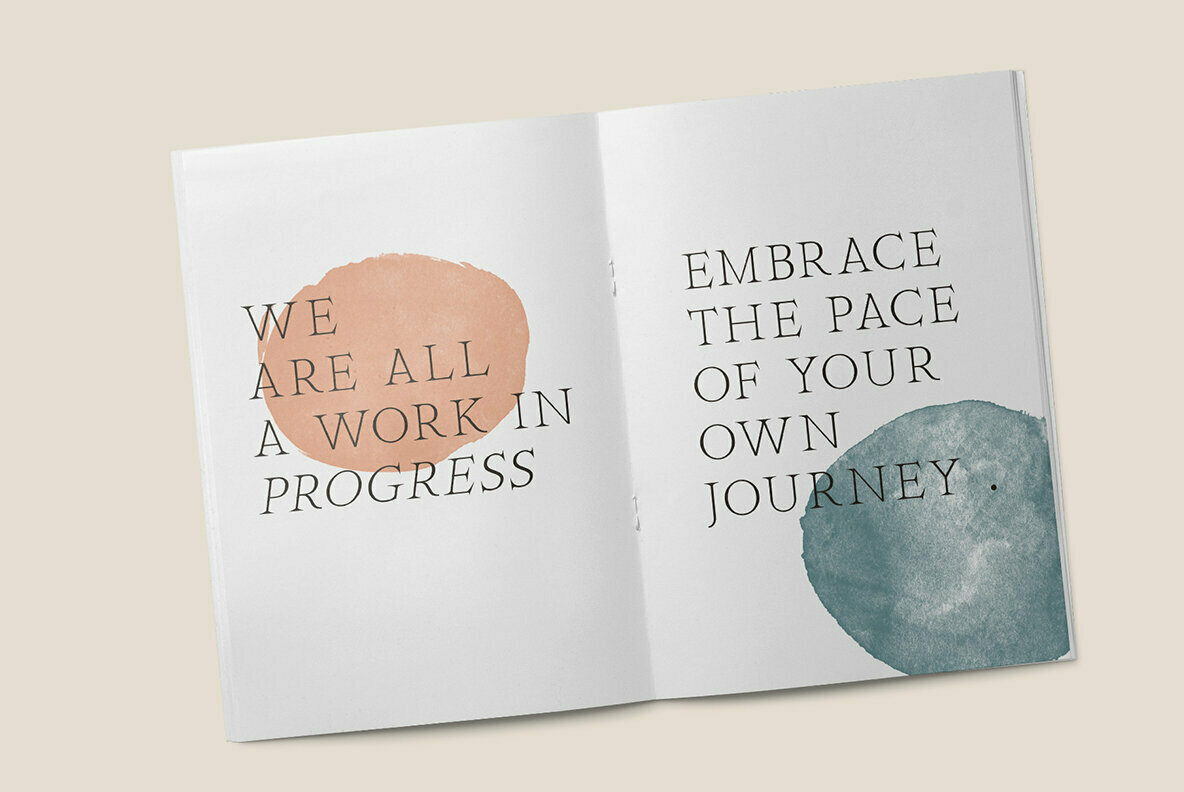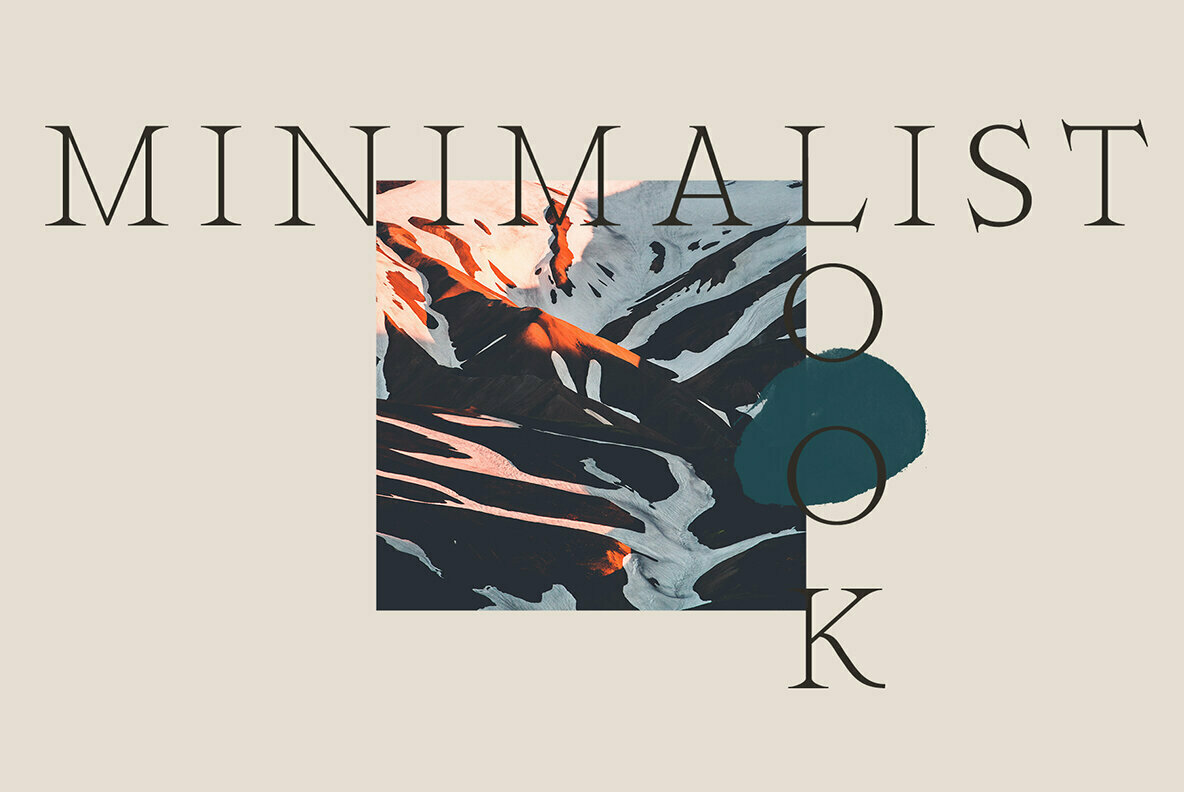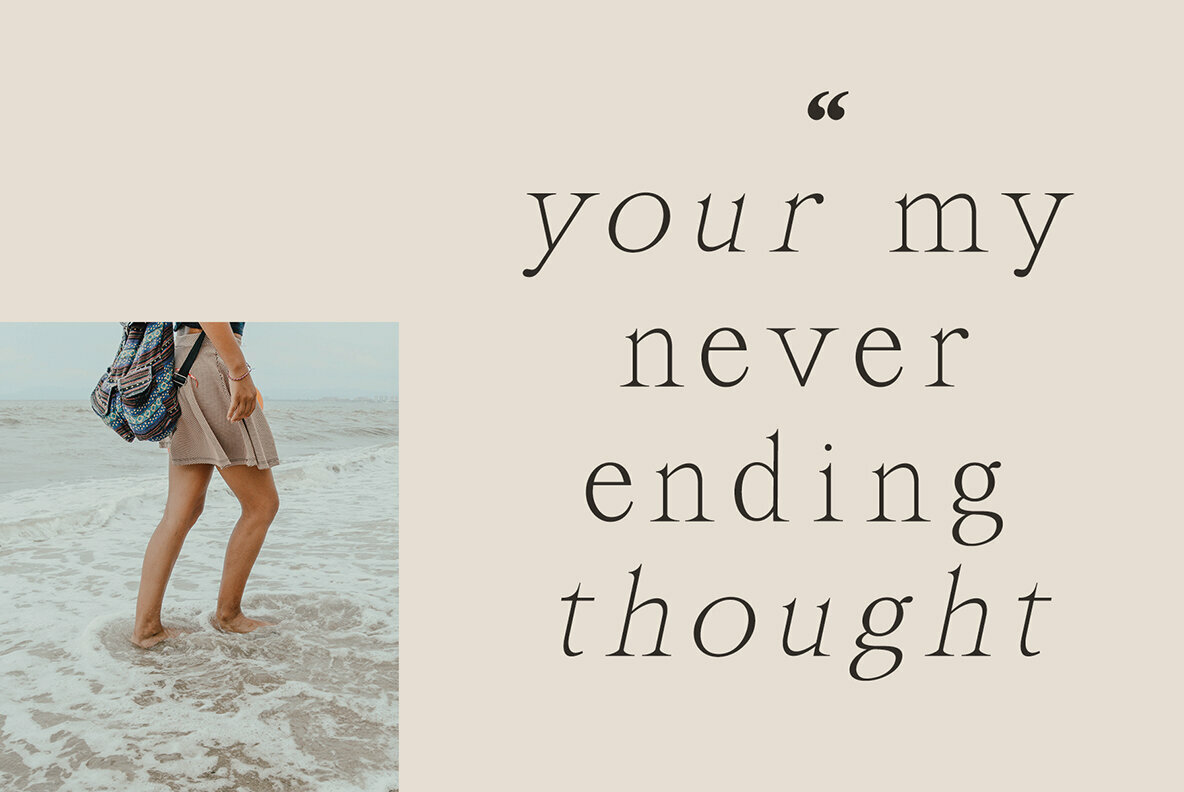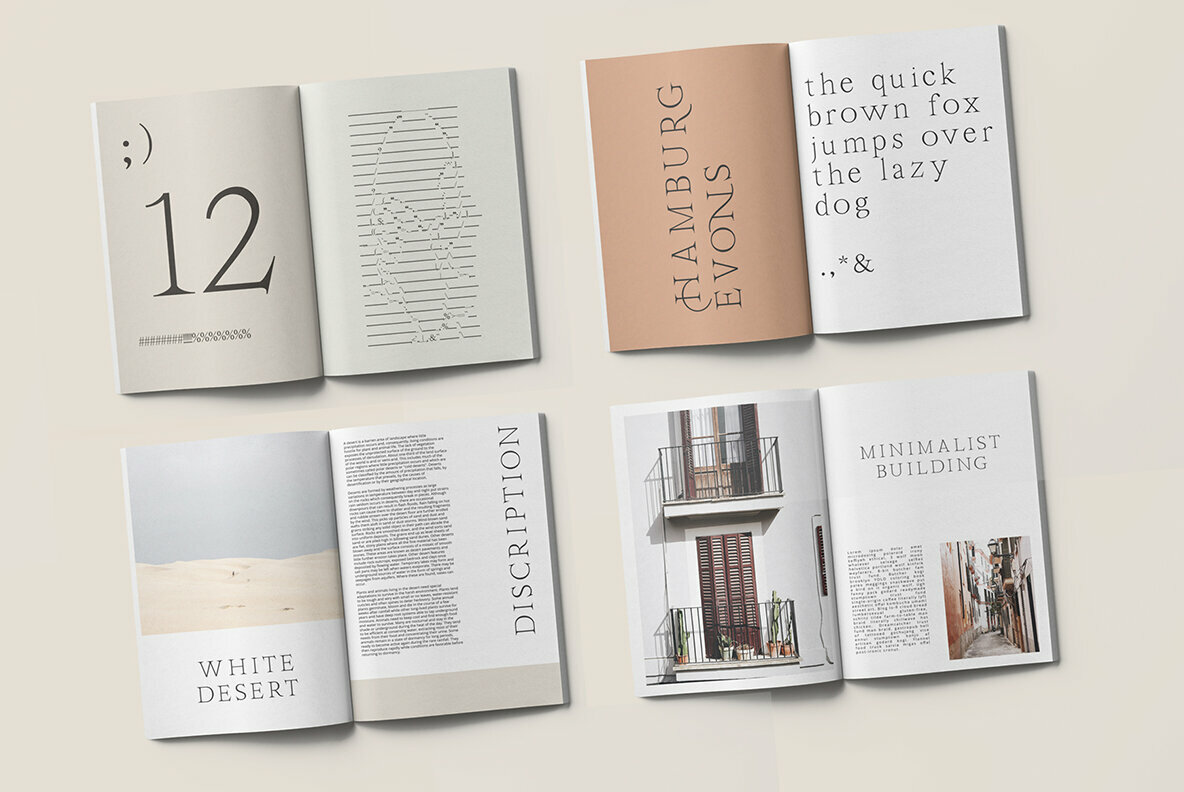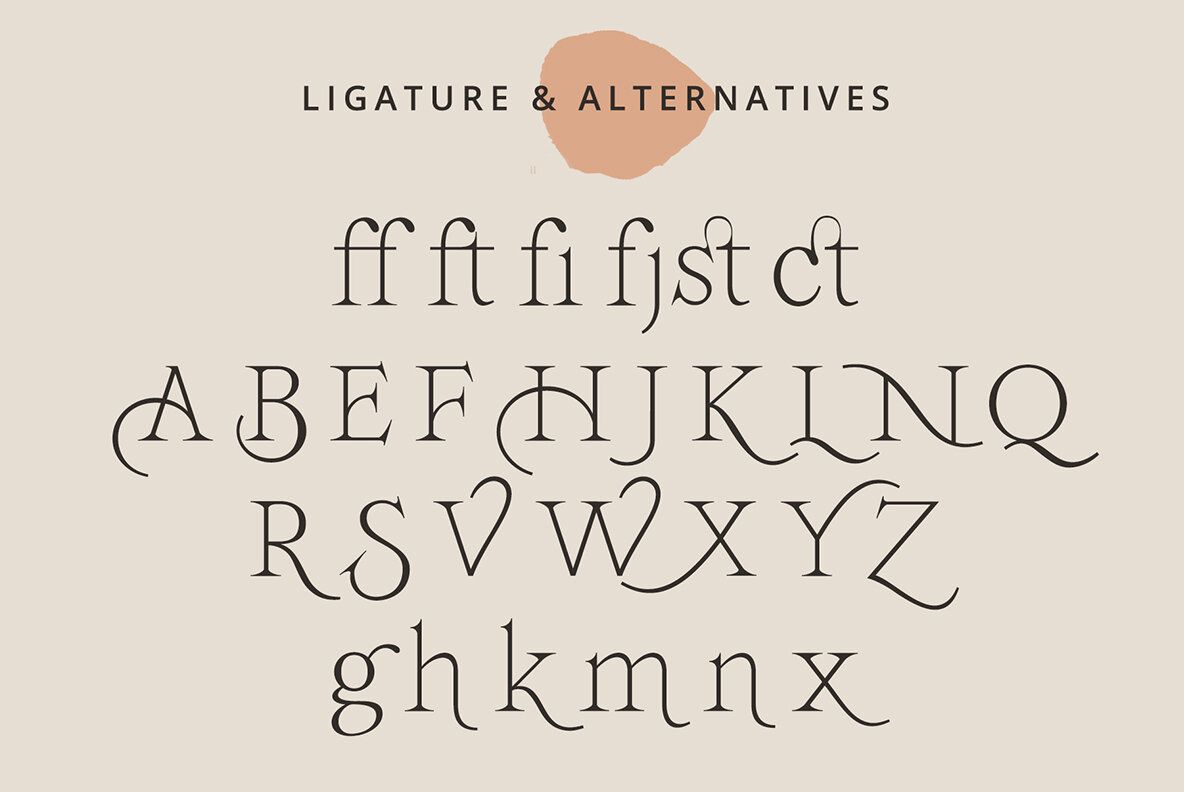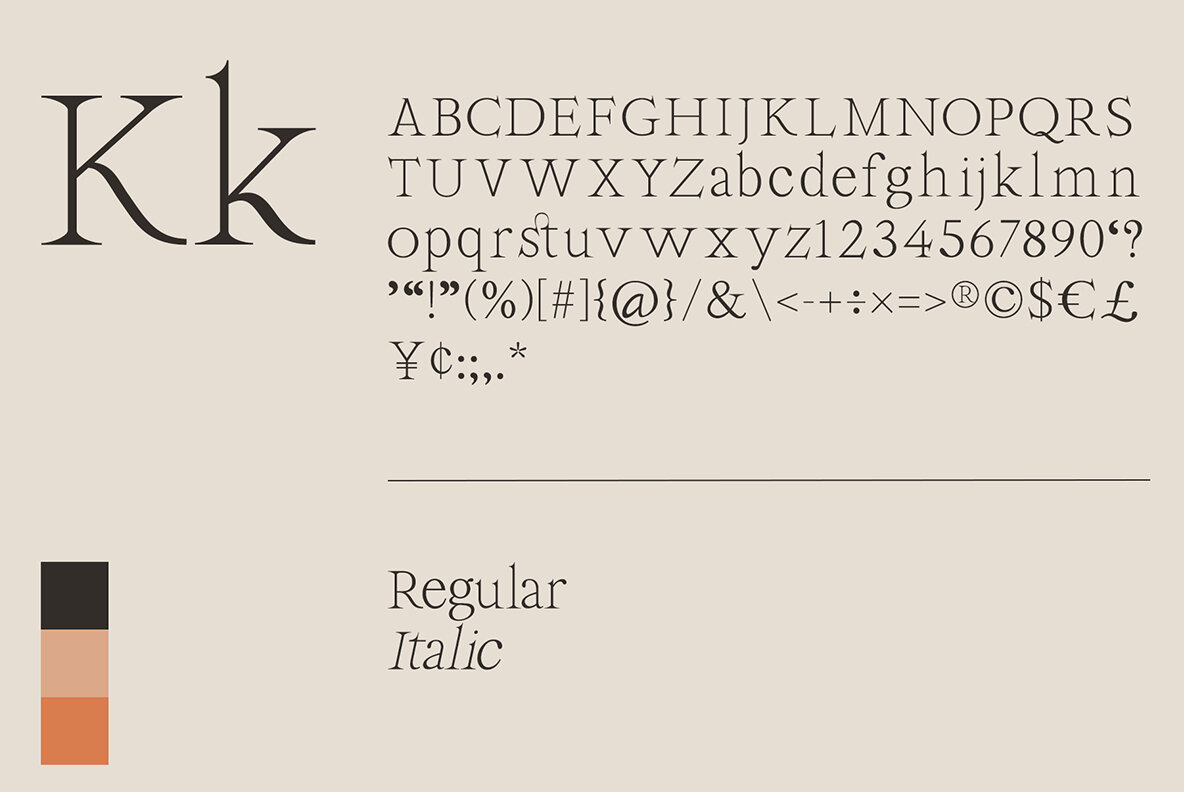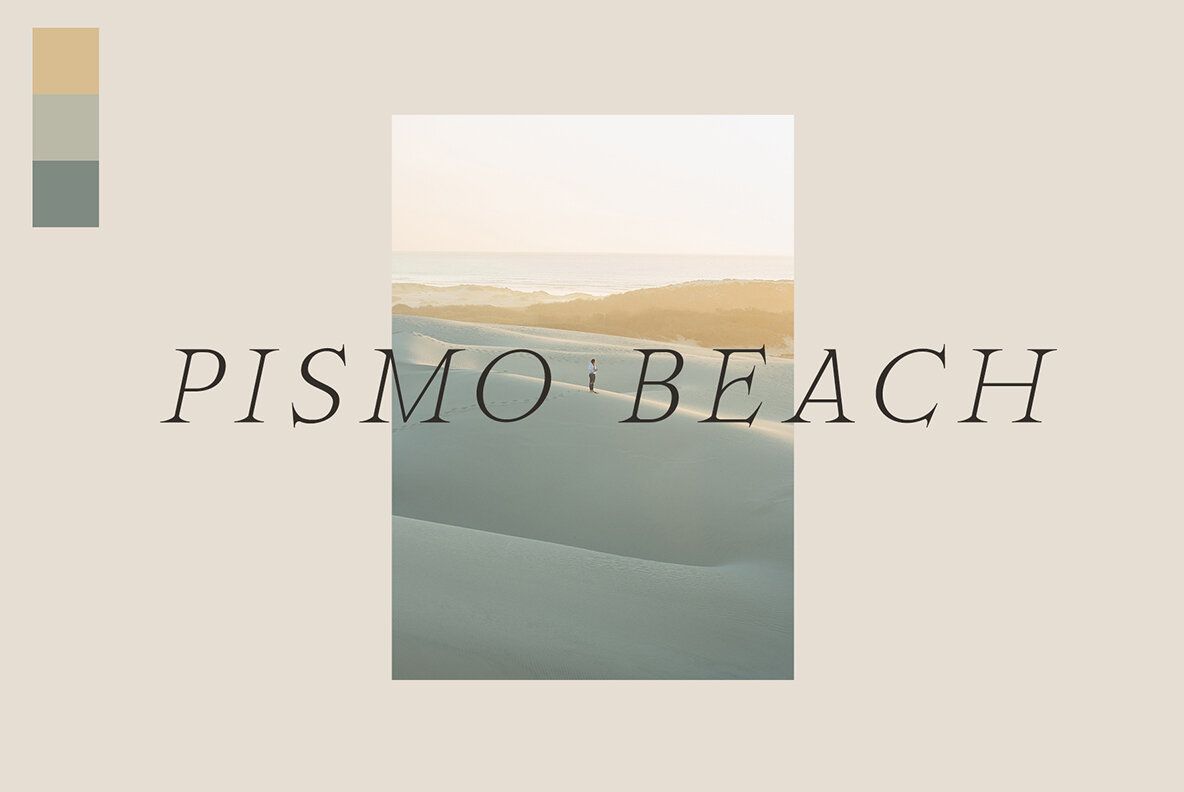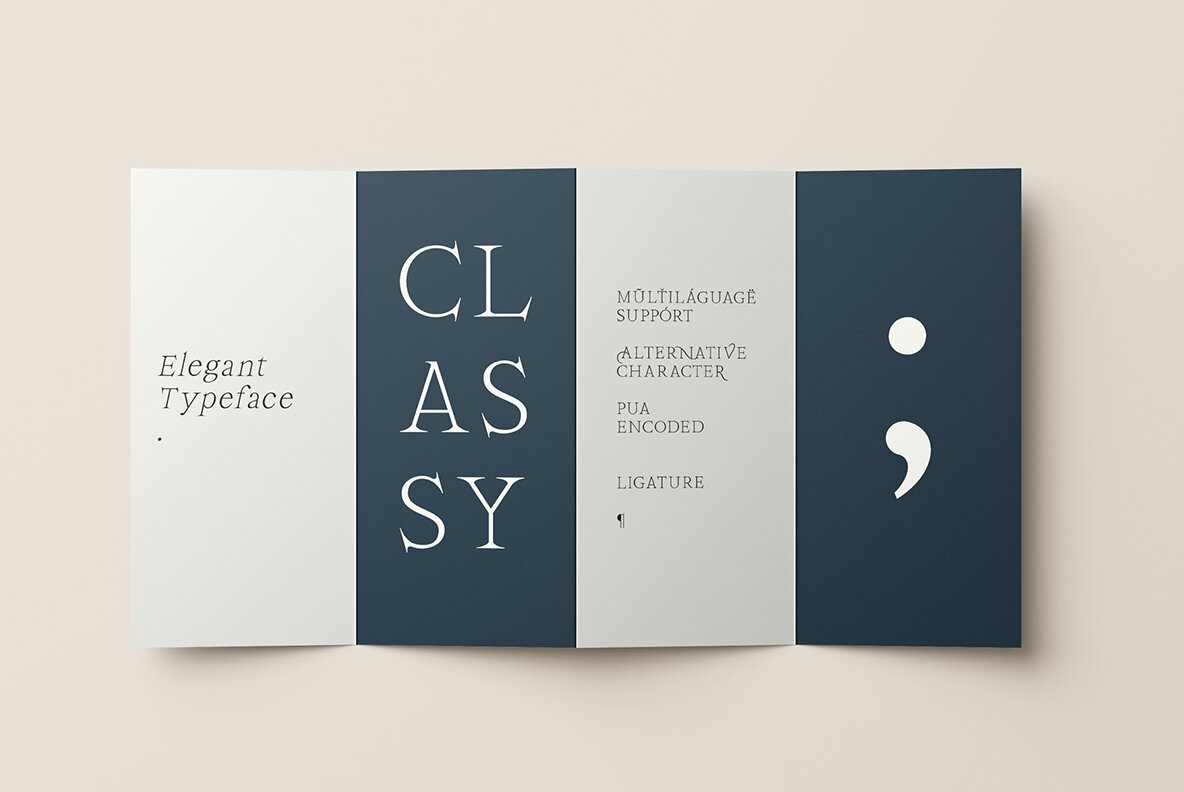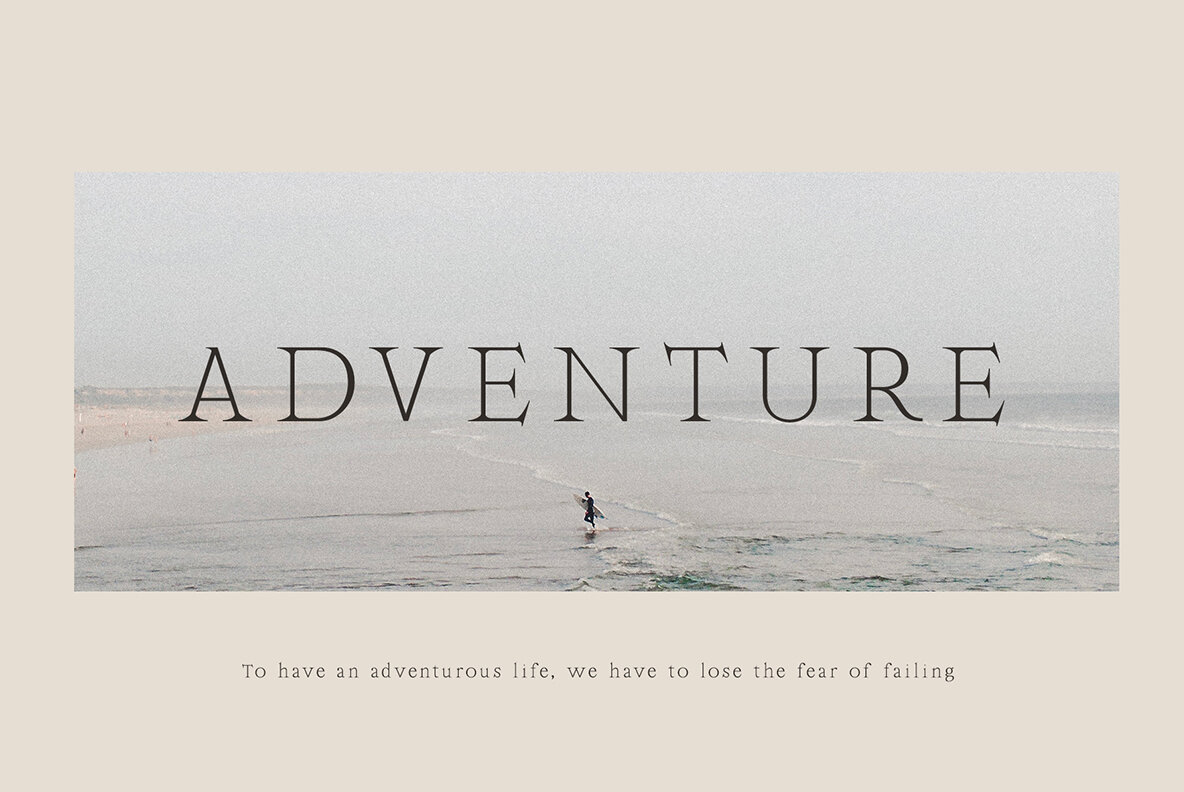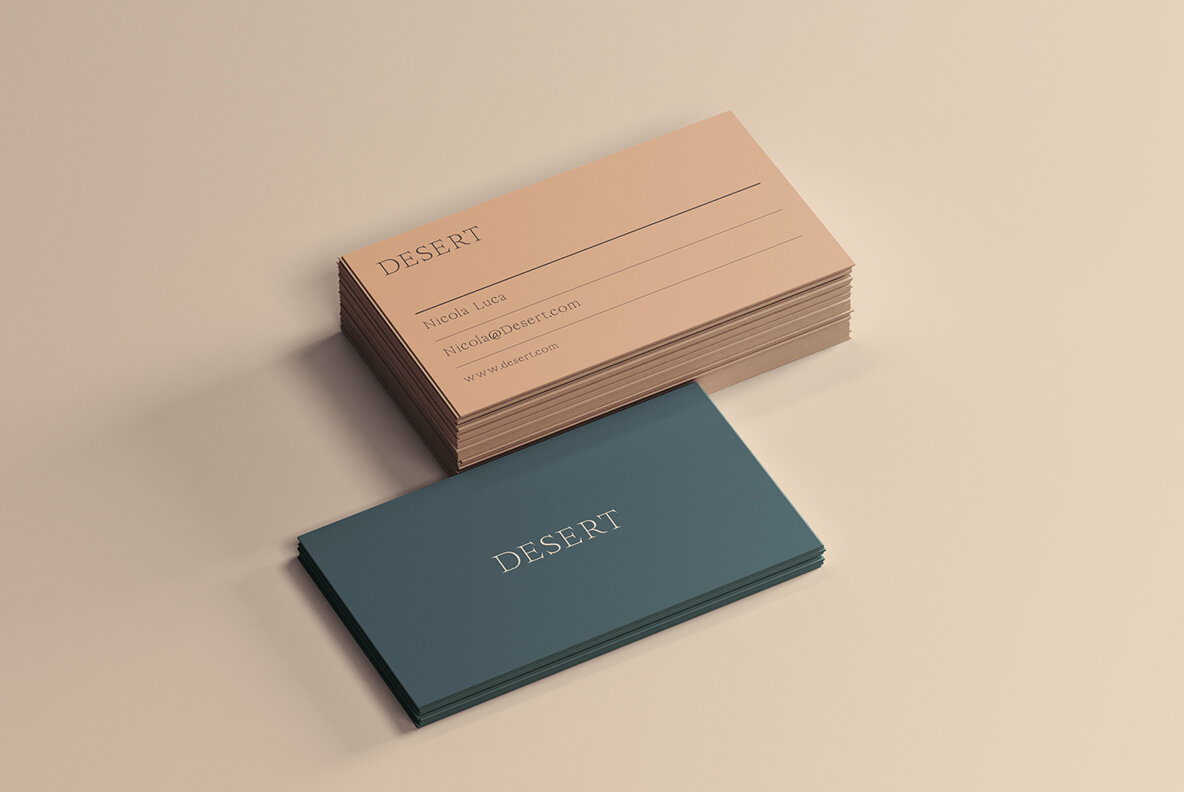
Kudoes Typeface Font
Immerse yourself in the refined elegance of Kudoes, a serif typeface crafted by Emyself Design. With its sleek, thin design and timeless appeal, this font offers a perfect blend of modernity and class for various creative projects. Its minimalist form does not sacrifice sophistication, making it a versatile choice for those who value both aesthetic and functionality. Kudoes supports multiple languages and includes alternative characters and ligatures that enhance its polished appearance. This typeface is well-suited for a variety of applications, including but not limited to branding projects, logo creation, editorial content, and marketing materials. Dream up an elegant magazine cover or a captivating poster, and let Kudoes bring your vision to life.Kudoes: Minimalist Serif with Sophistication